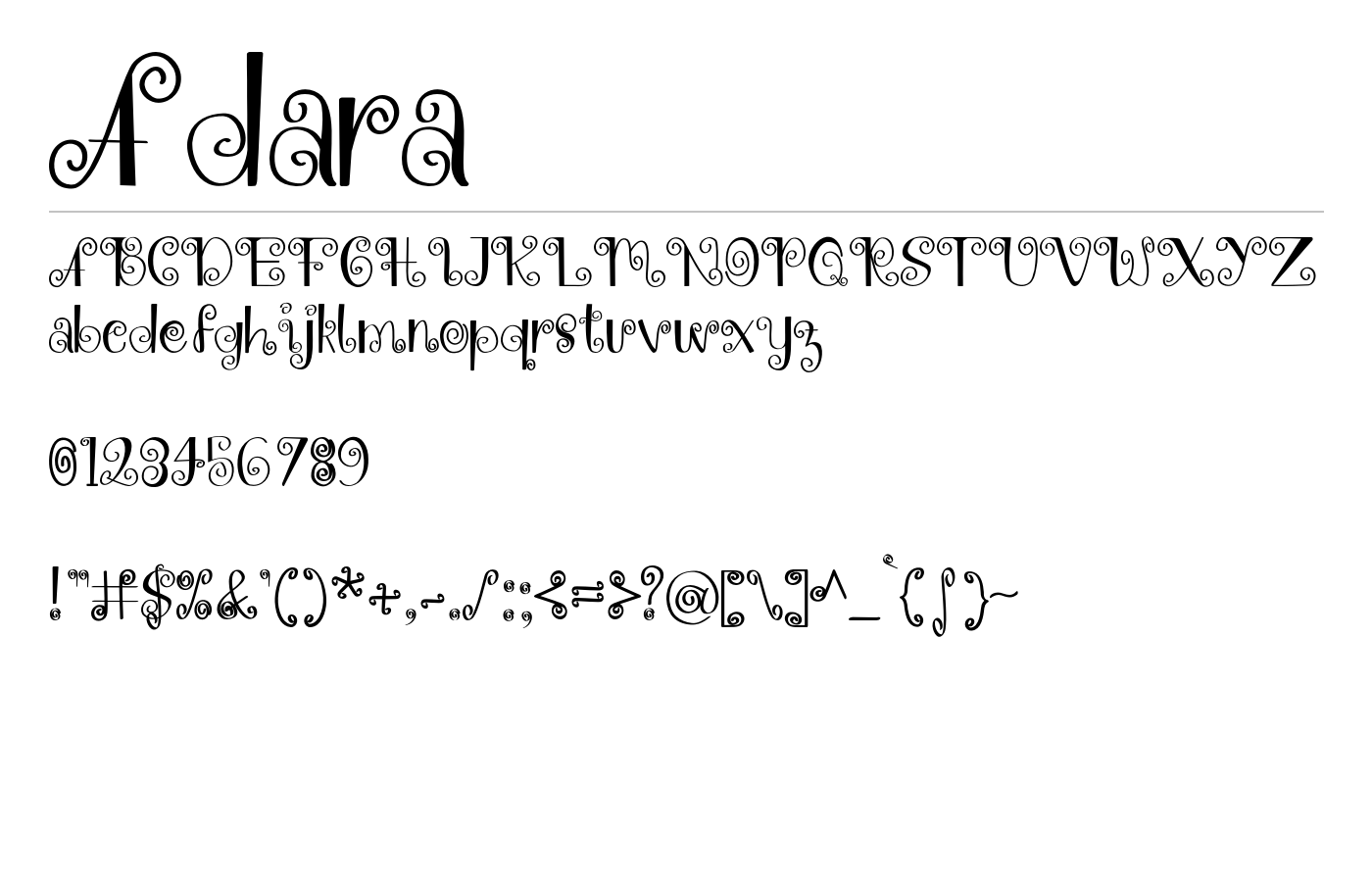
Adara is a playful and decorative serif font featuring whimsical curls and swirls on both uppercase and lowercase letters, giving it a unique, artistic flair. Its medium weight and balanced proportions make it ideal for creative headlines, invitations, and branding that seek a charming, quirky personality. This font works best in display uses where its elaborate details can shine without sacrificing readability.
Adara Font
About Adara Font